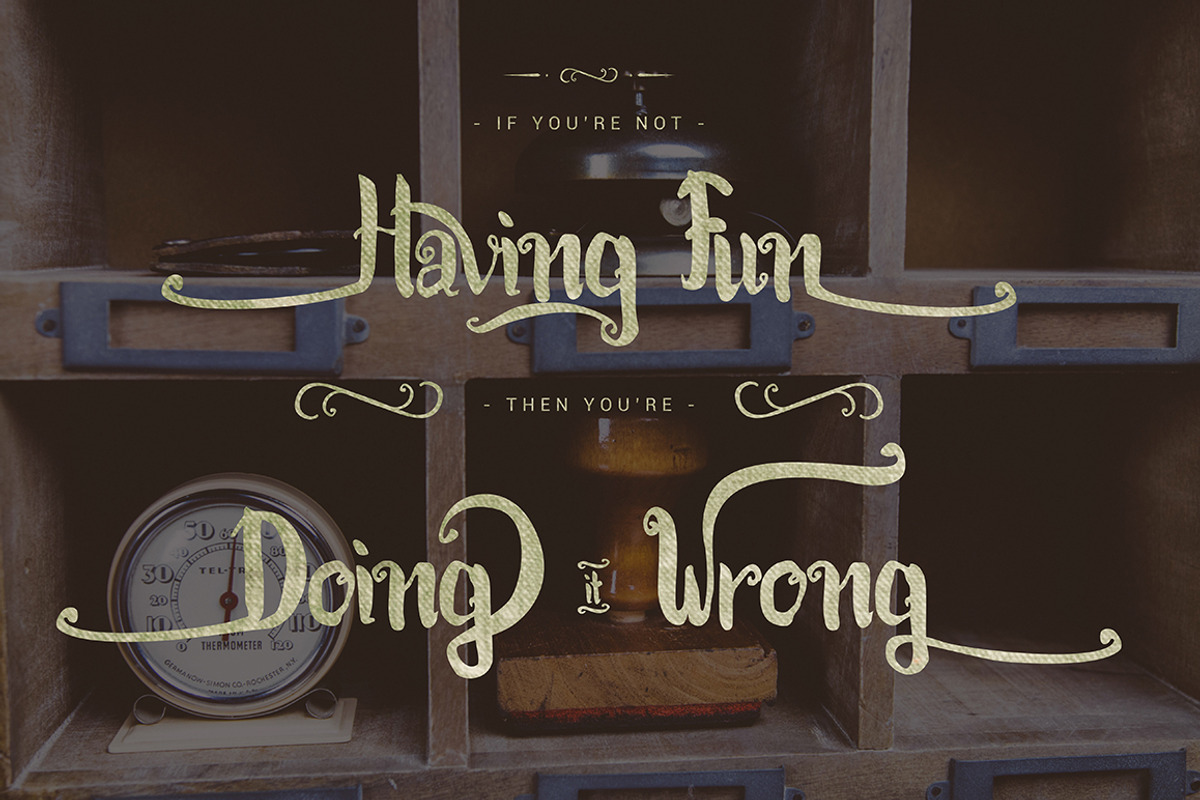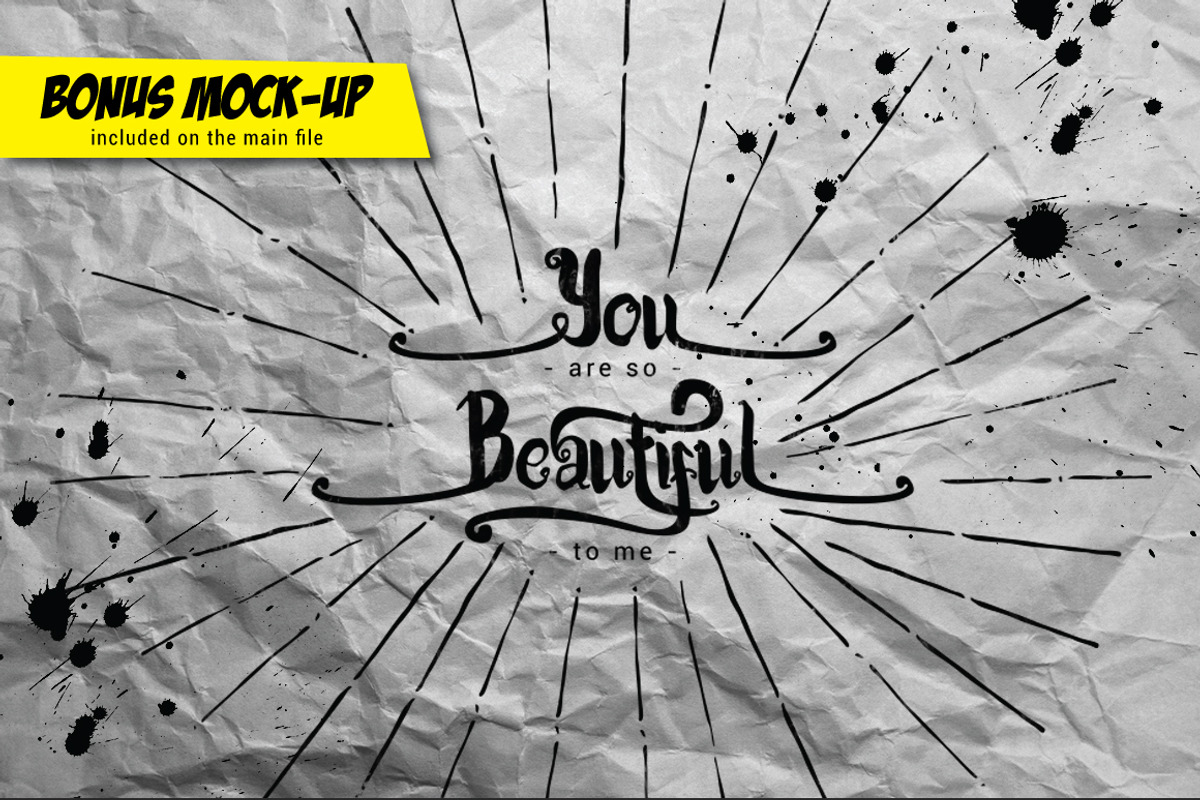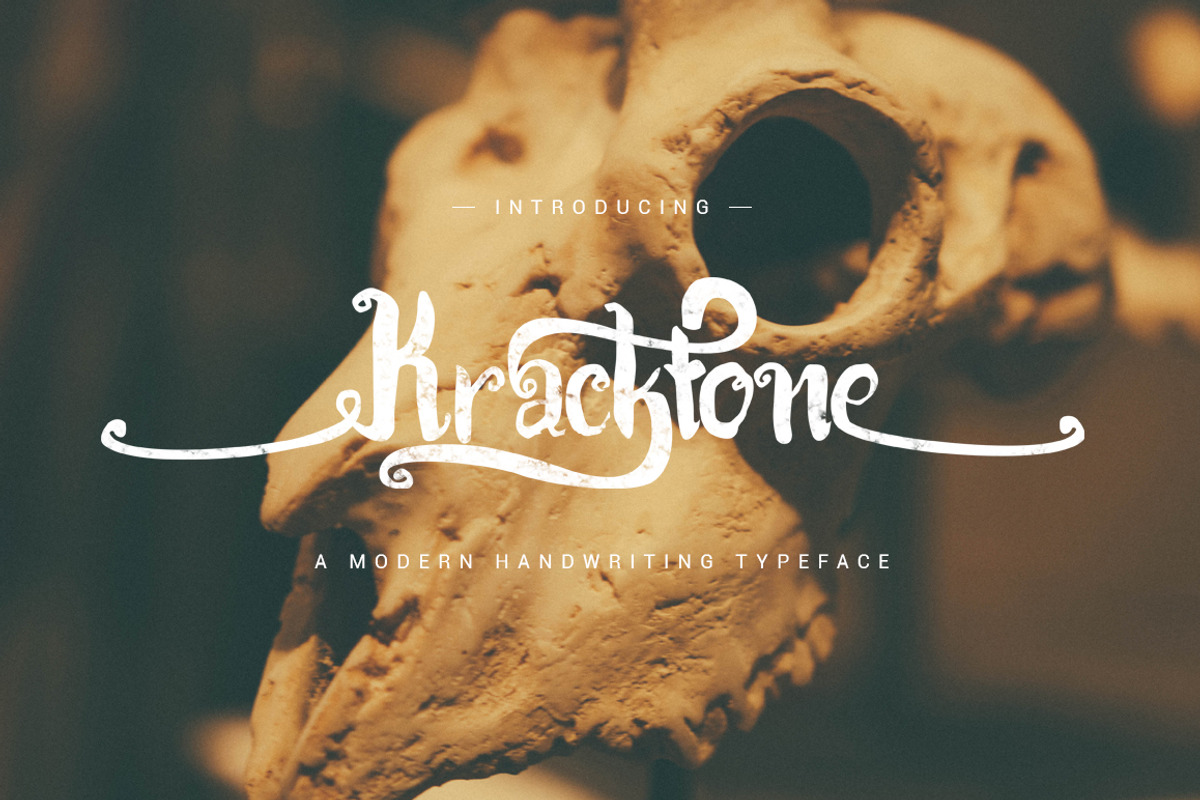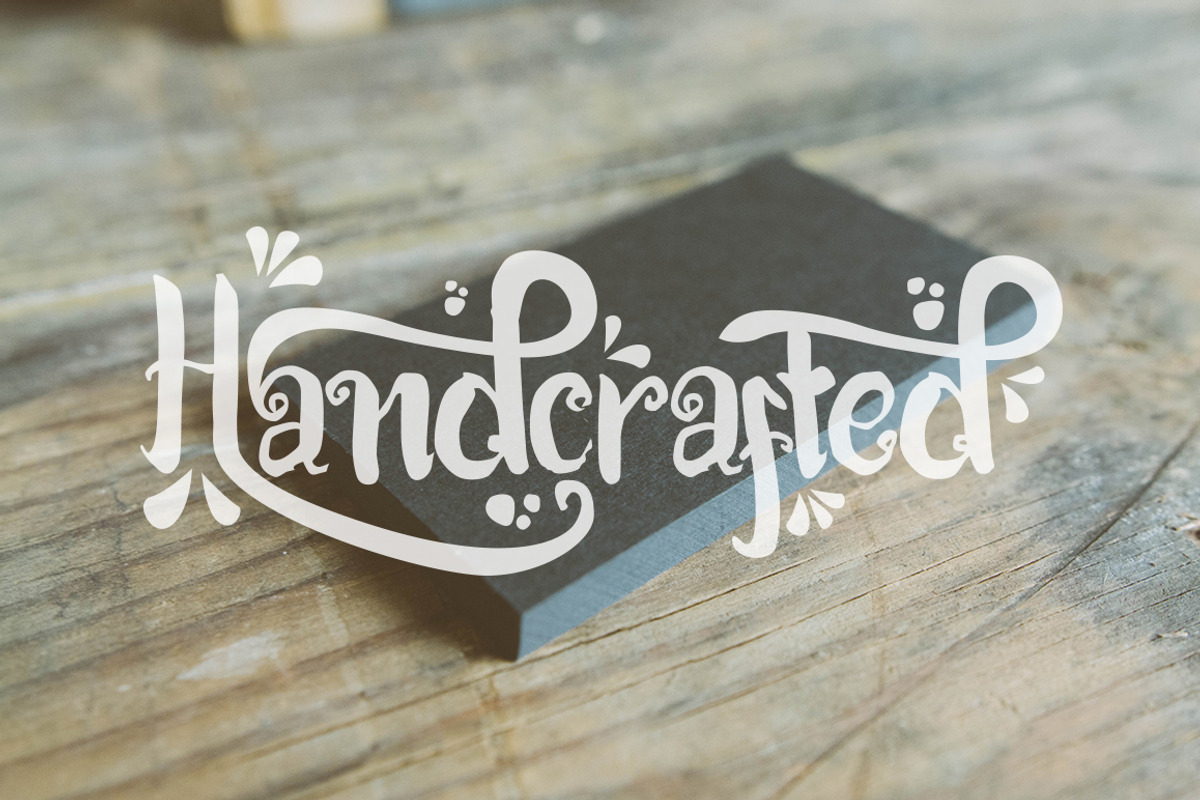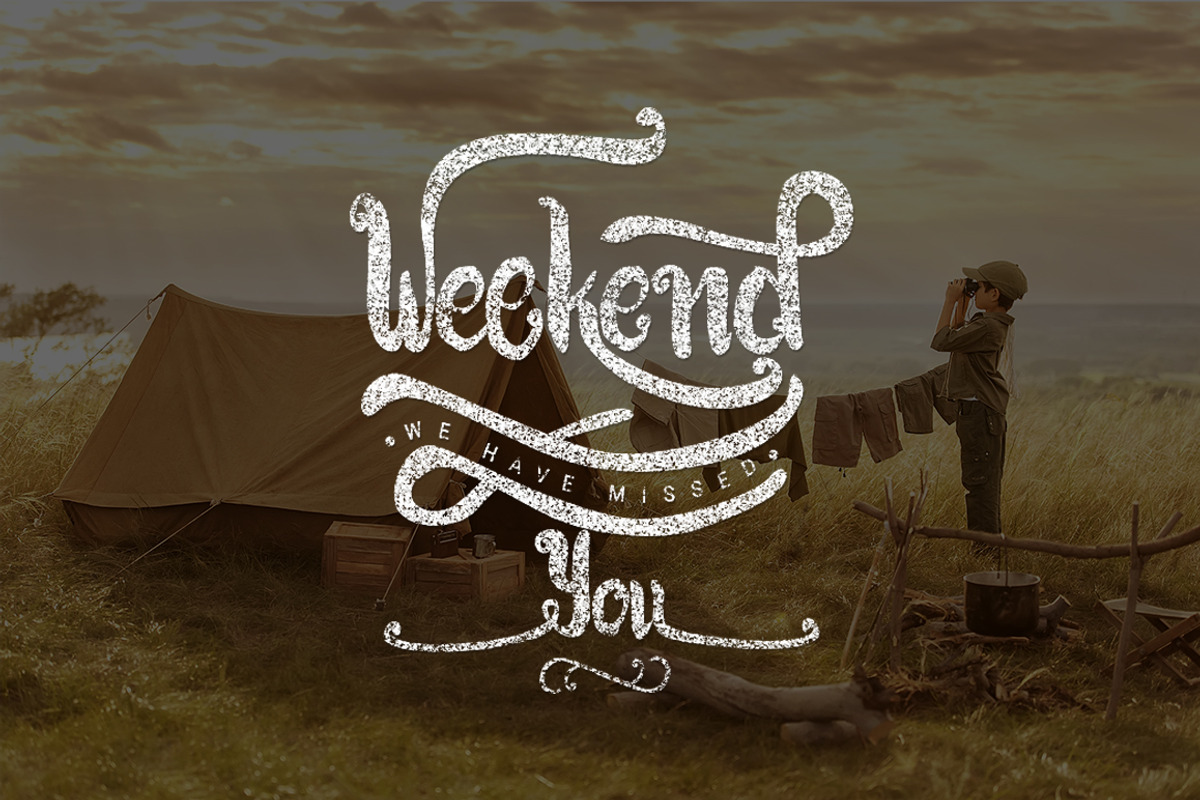
Kracktone Typeface
Feature the font:
- Standard
- Stylesheets
- Style Alternates
Can be used for various purposes.such as headings, logos, wedding invitation, t-shirt, letterhead, signage, label, news, posters, badges etc.